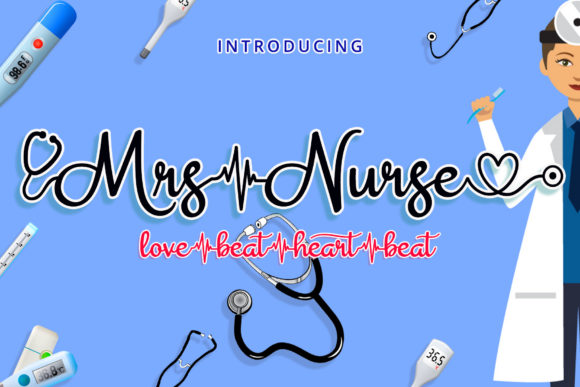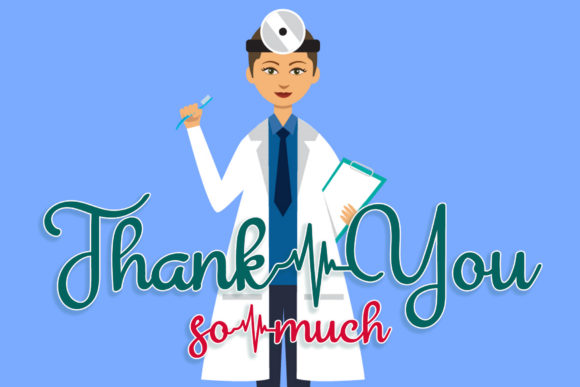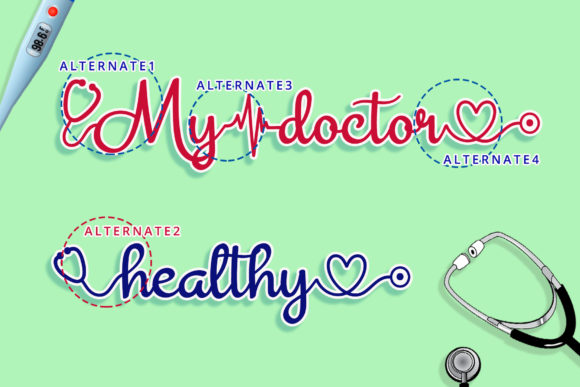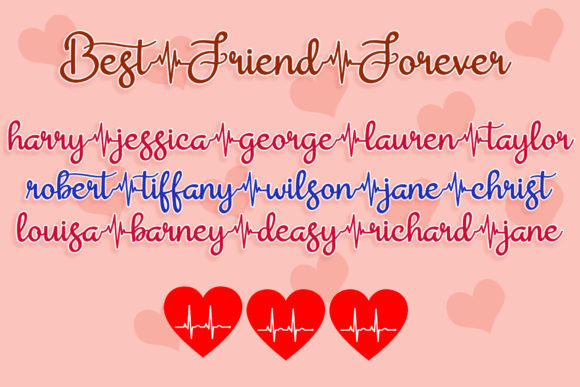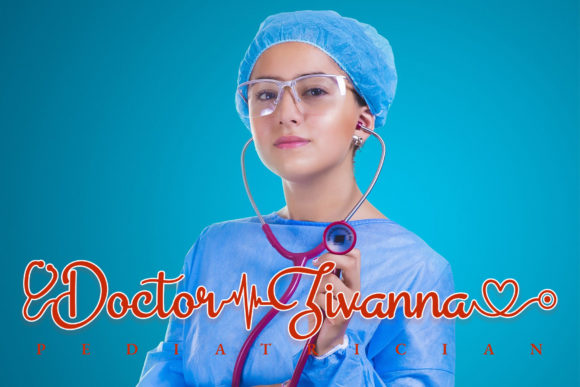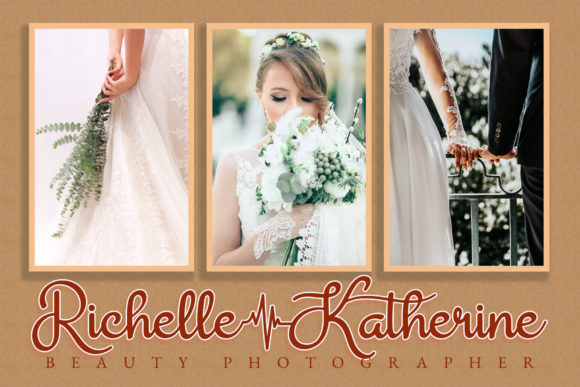
Mrs Nurse Font
About Mrs Nurse Font
Mrs Nurse is an elegant handwritten font with a modern feeling. Mrs Nurse font will elevate a wide range of design projects to the highest level, be it branding, headings, wedding designs, invitations, signatures, logos, labels, and much more!